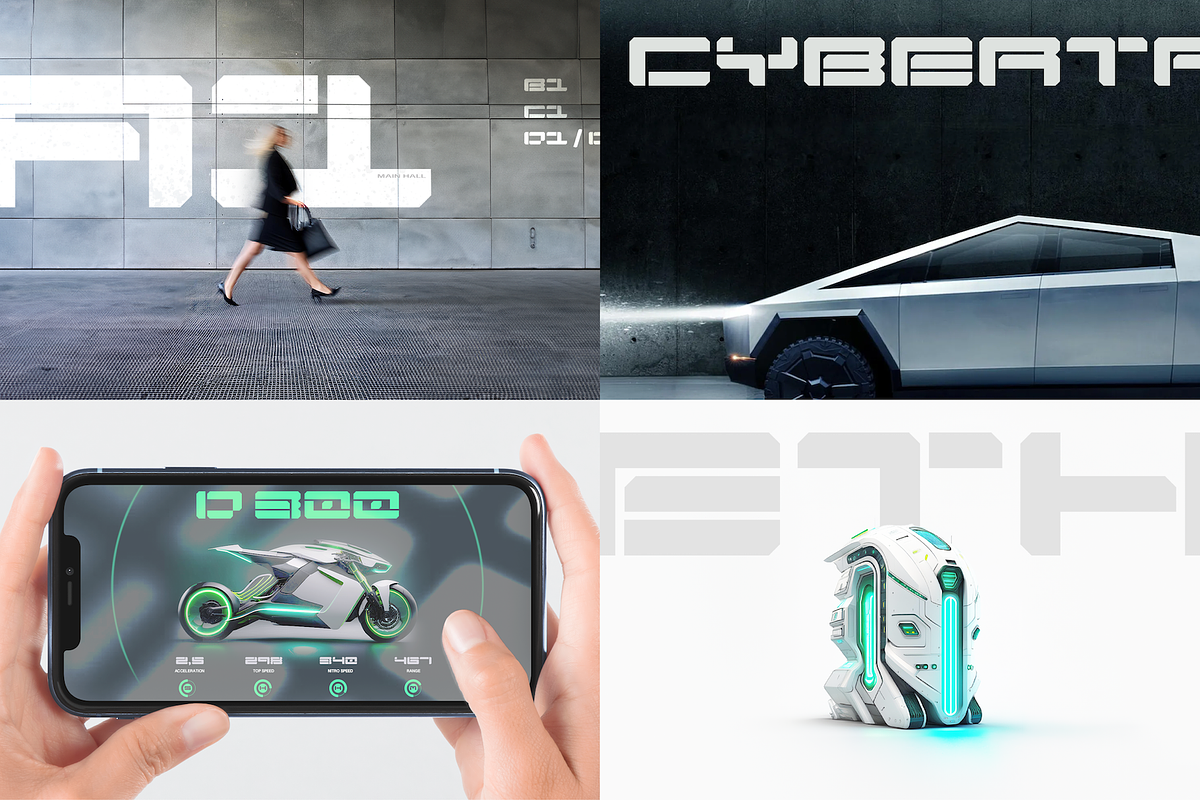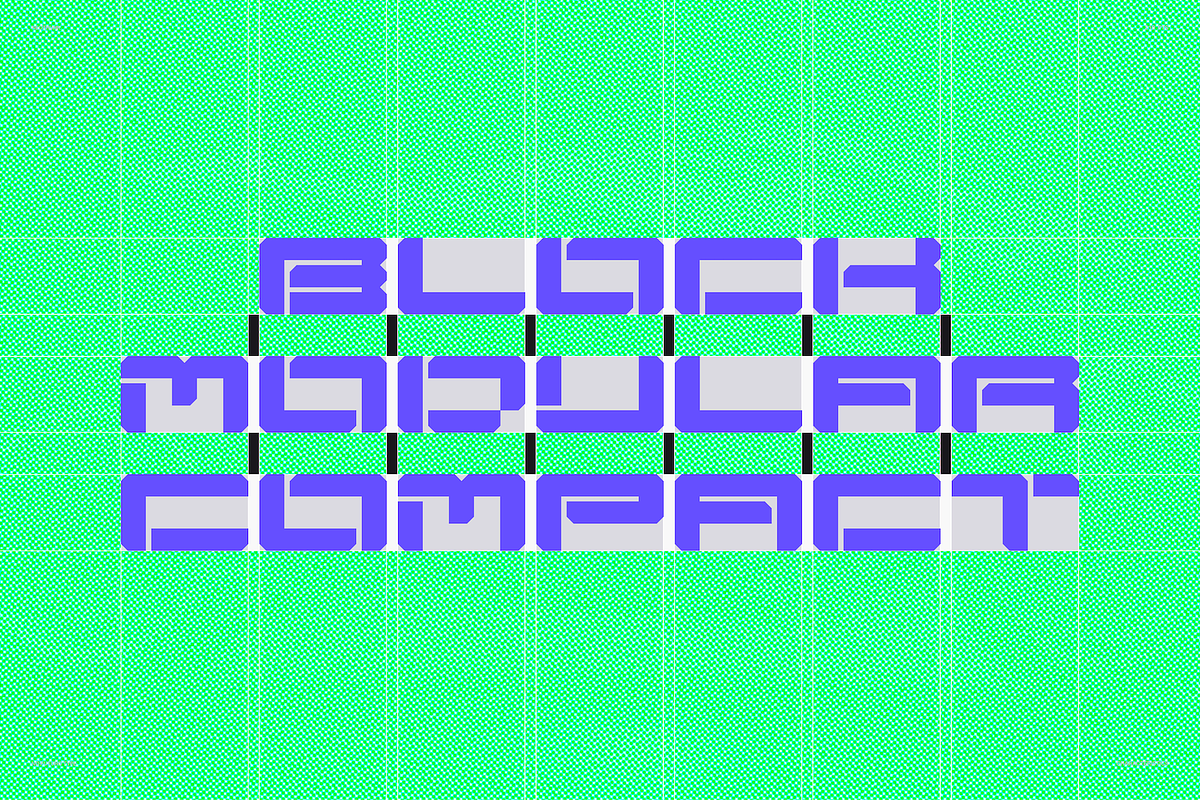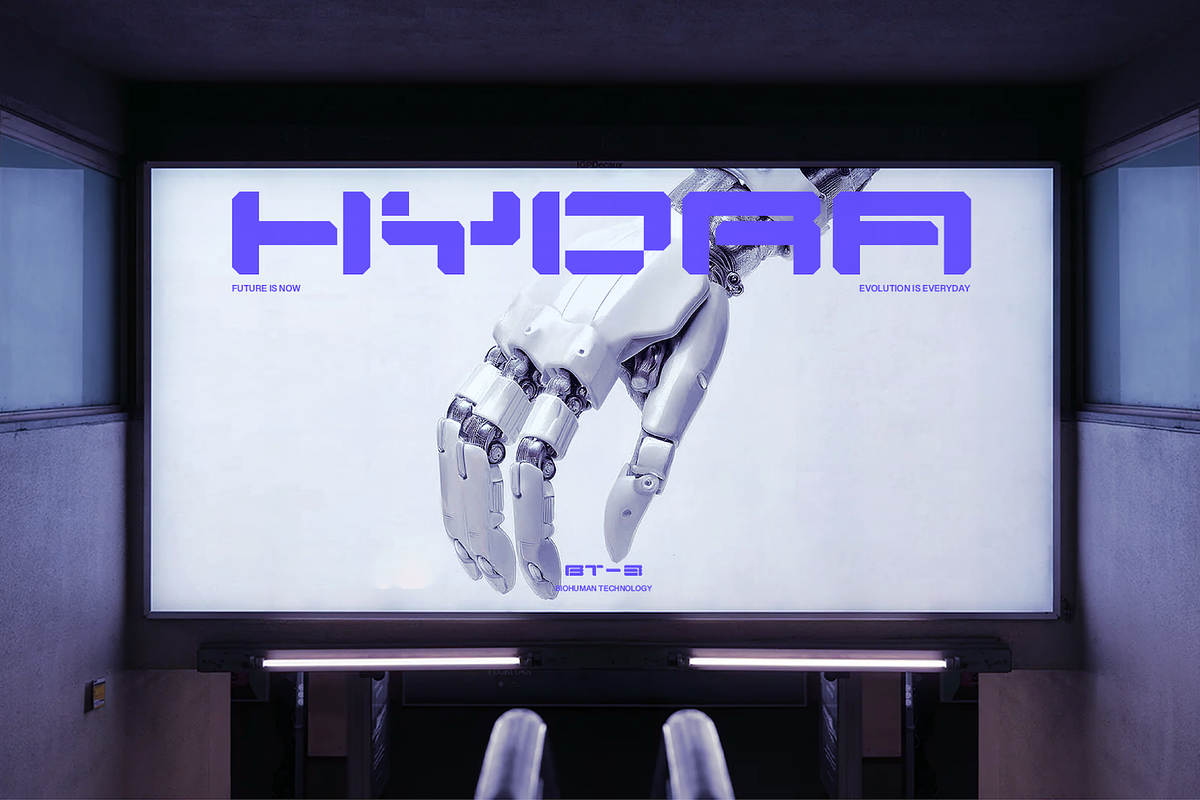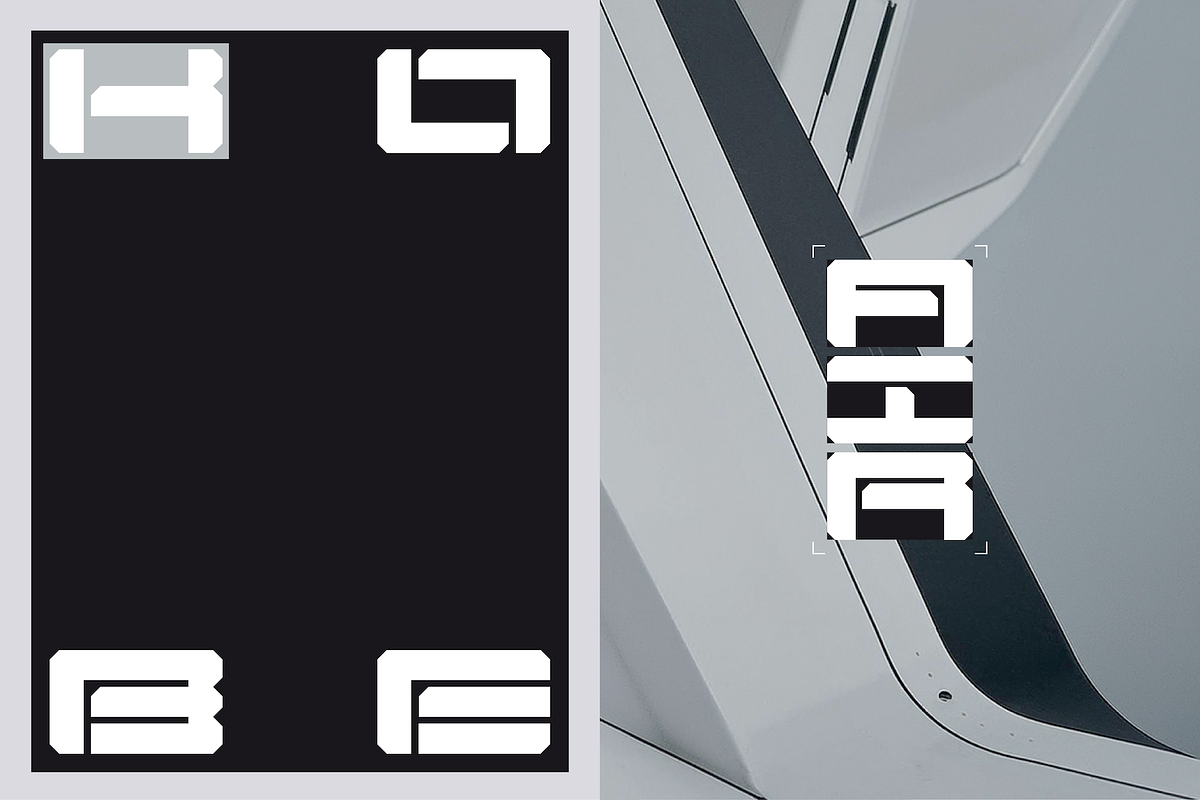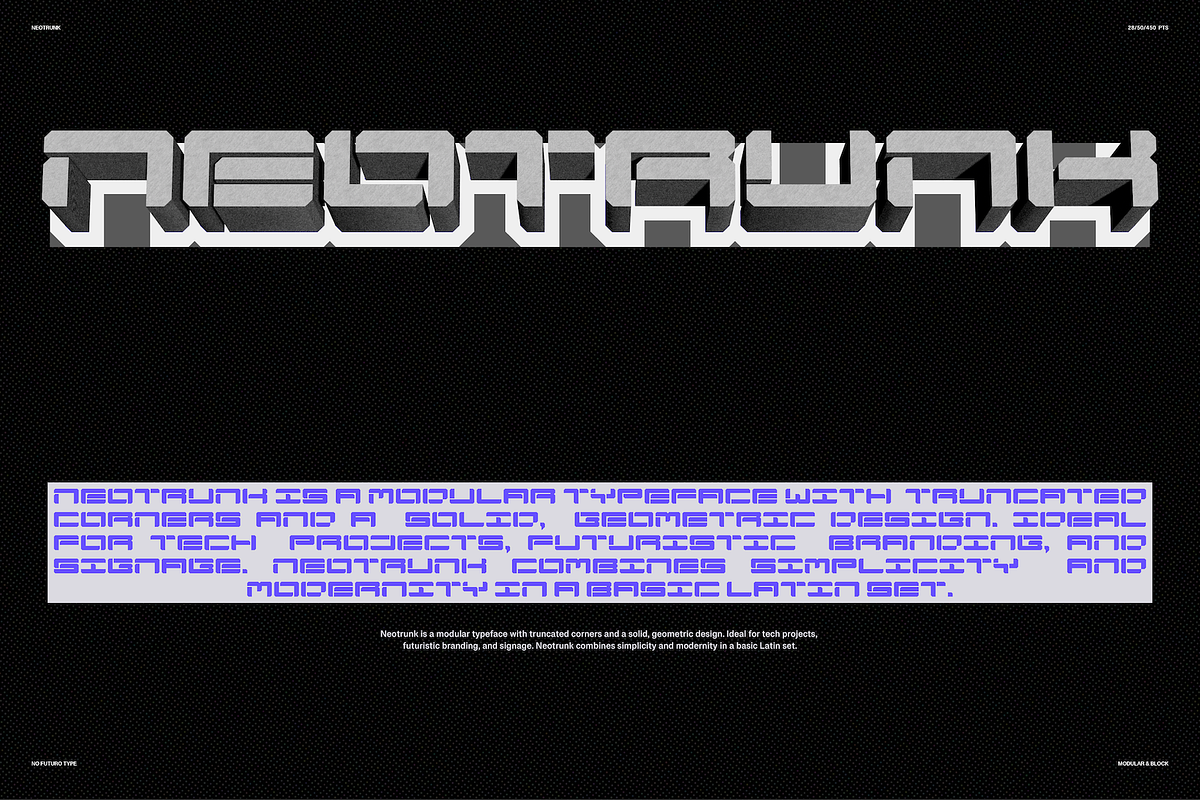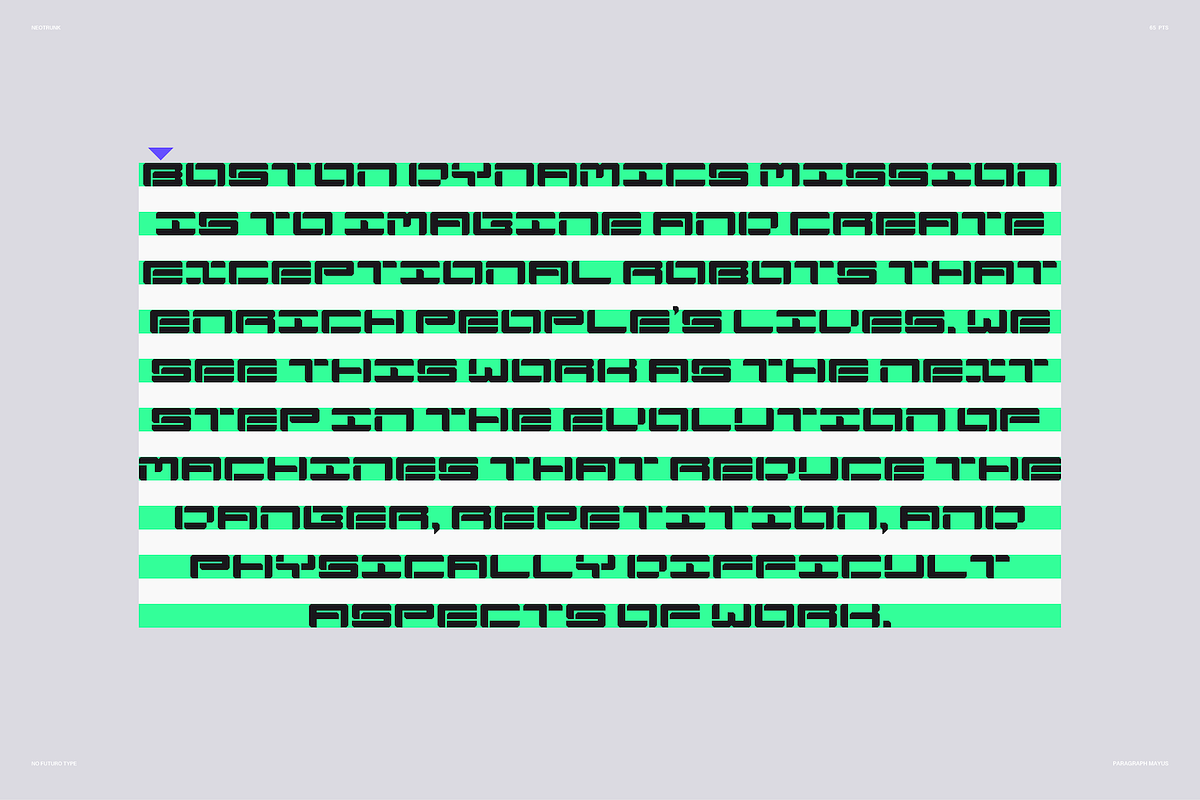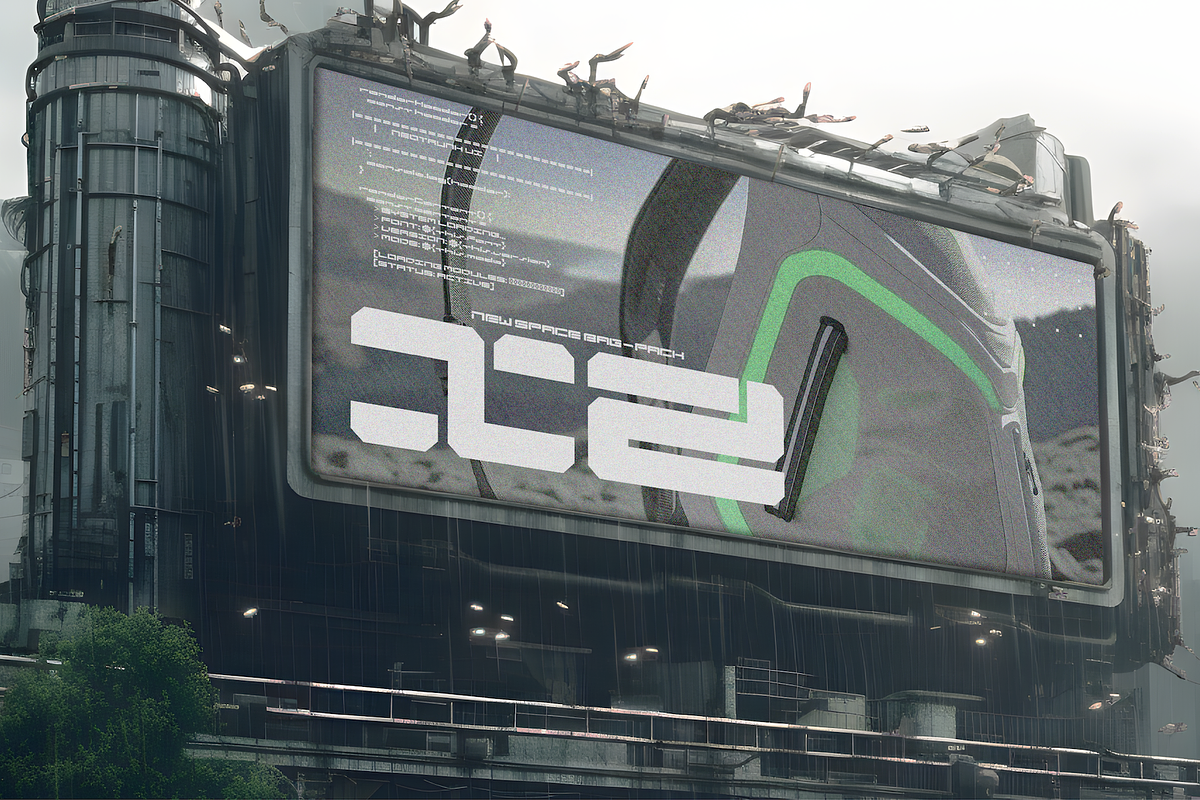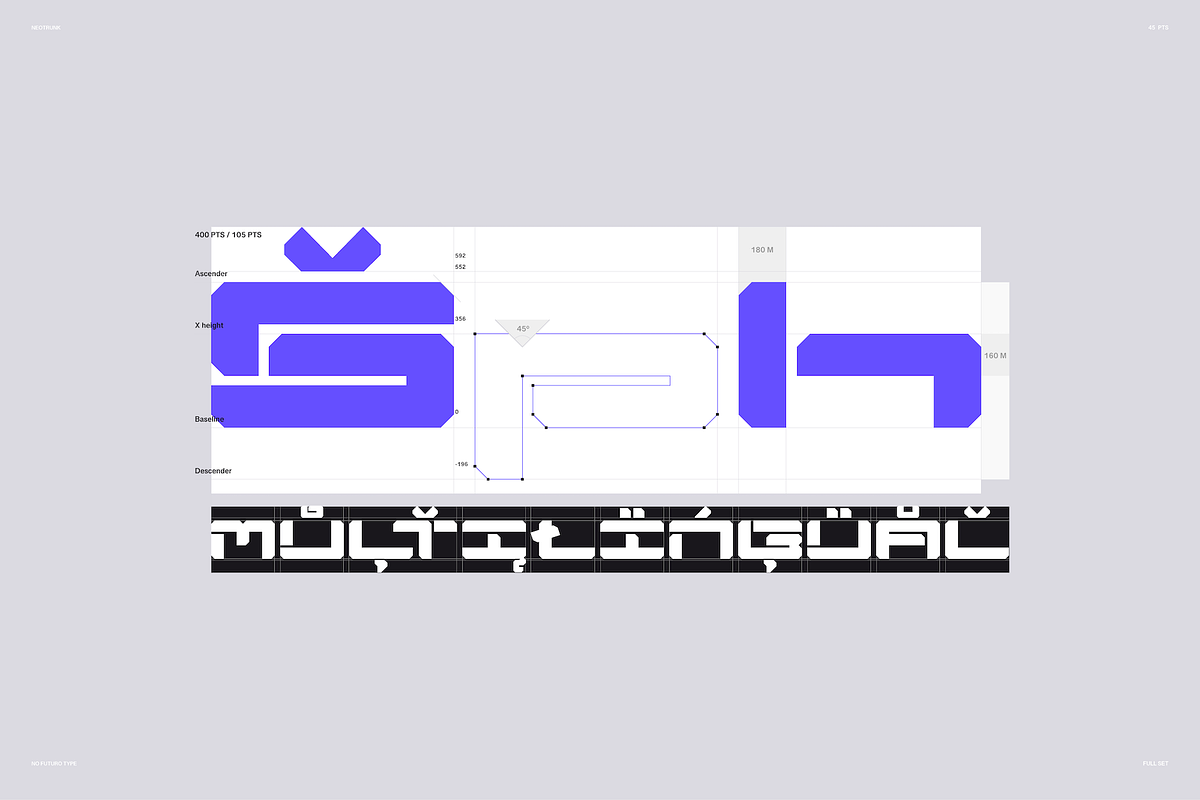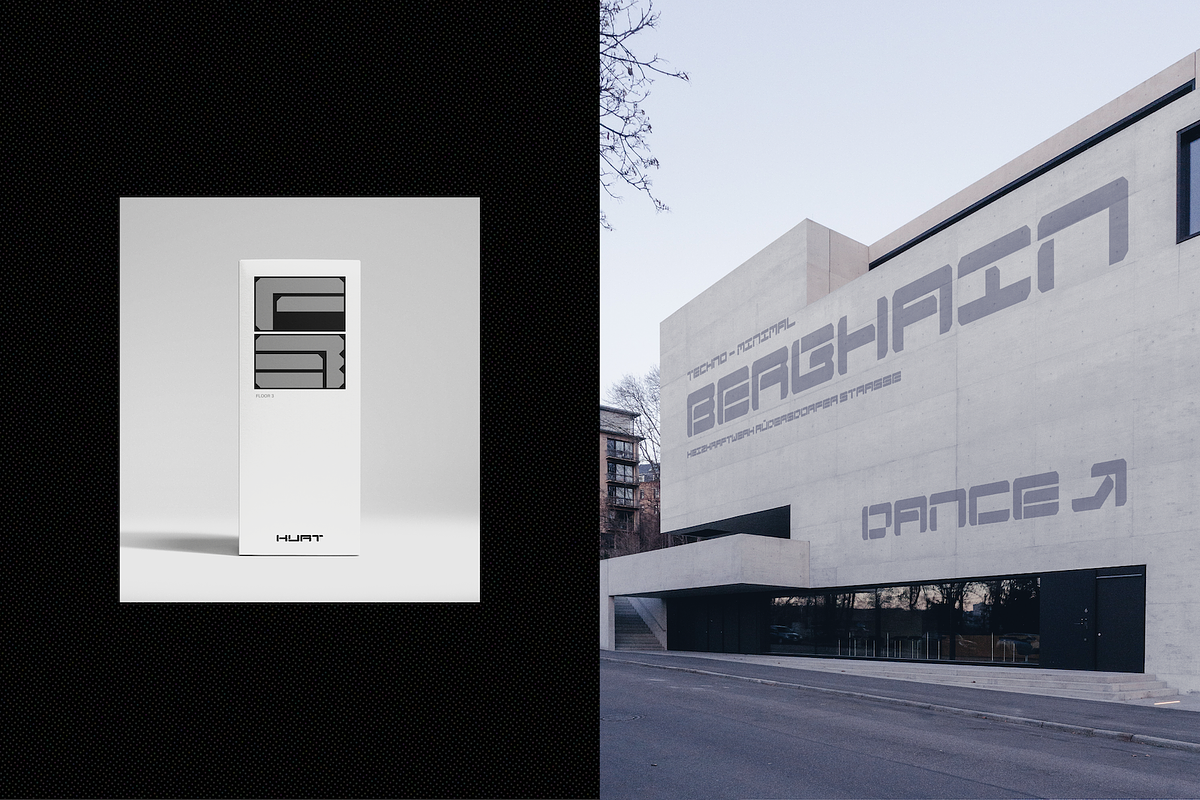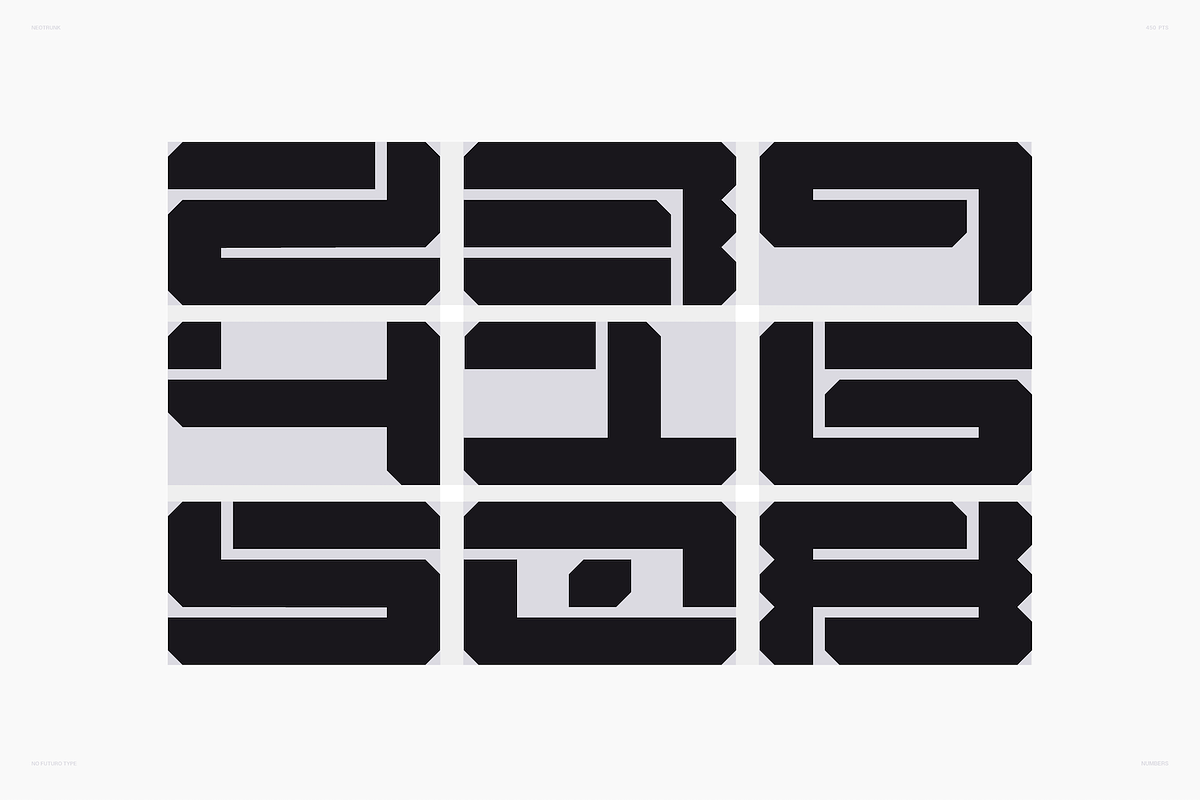
Neotrunk - Display
Neotrunk is a modular typeface with truncated corners and a solid, geometric design. Ideal for tech projects, futuristic branding, and signage. Neotrunk combines simplicity and modernity in a basic Latin set.